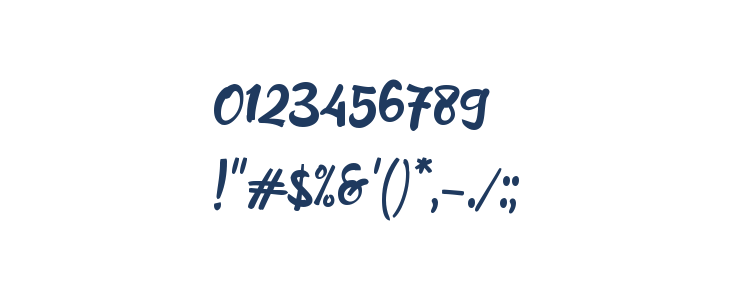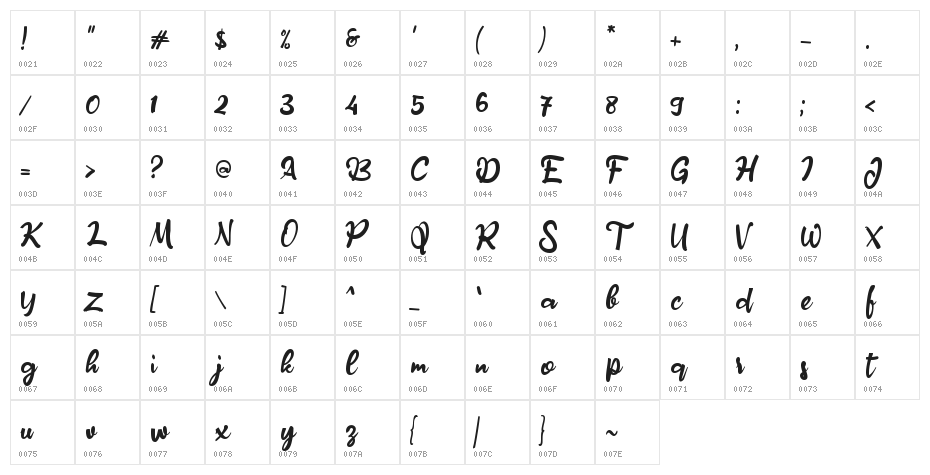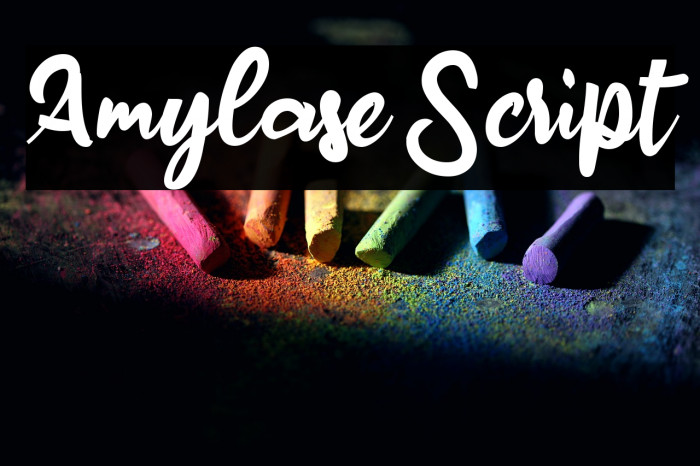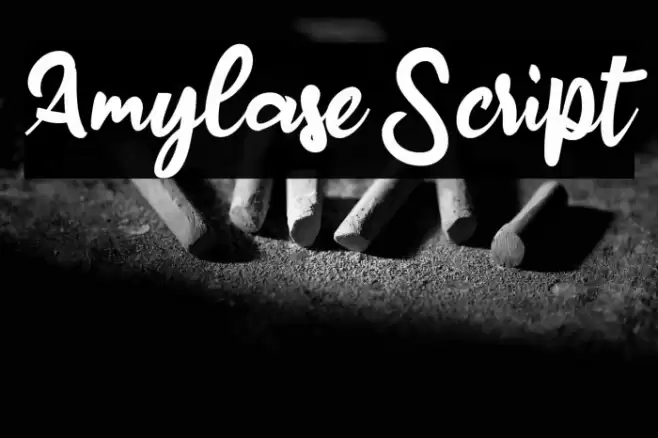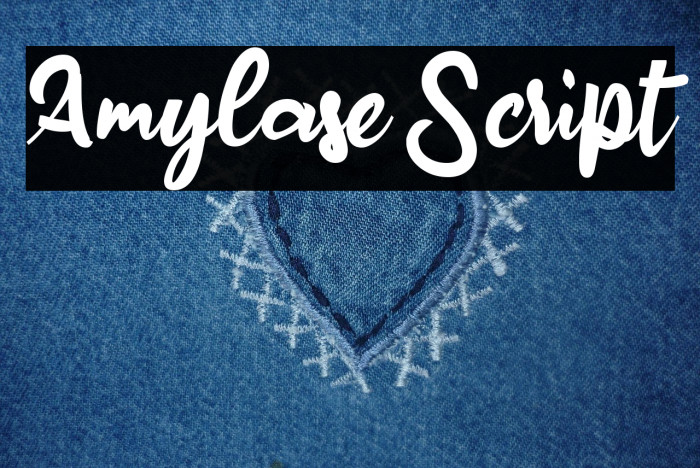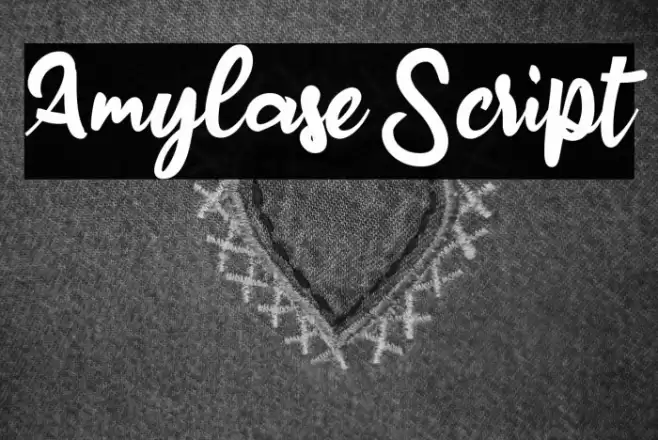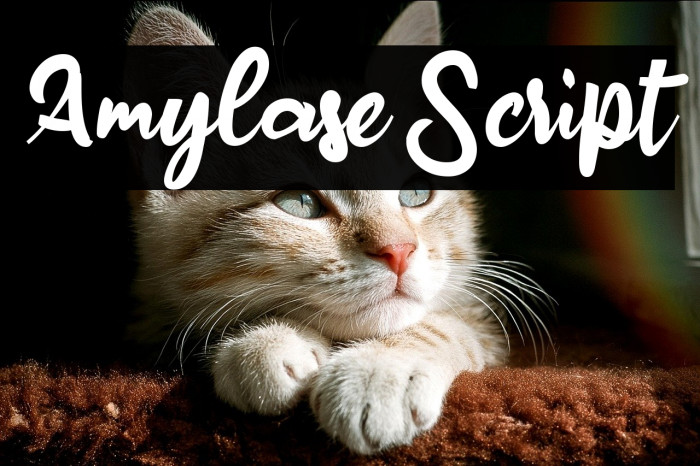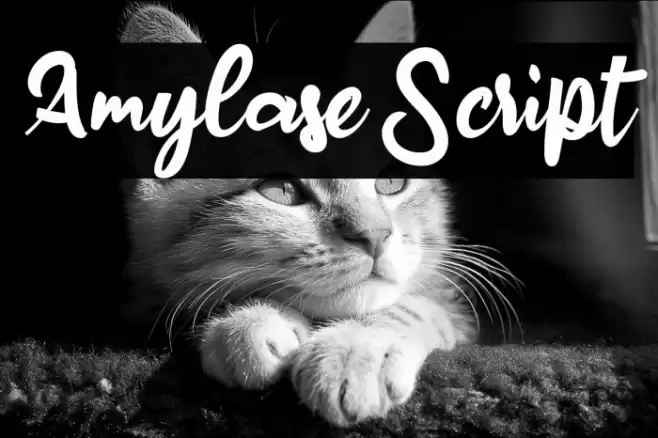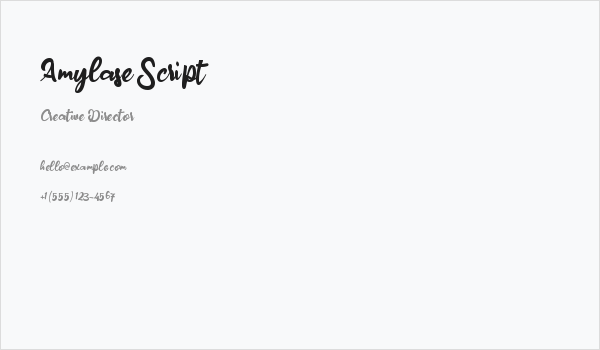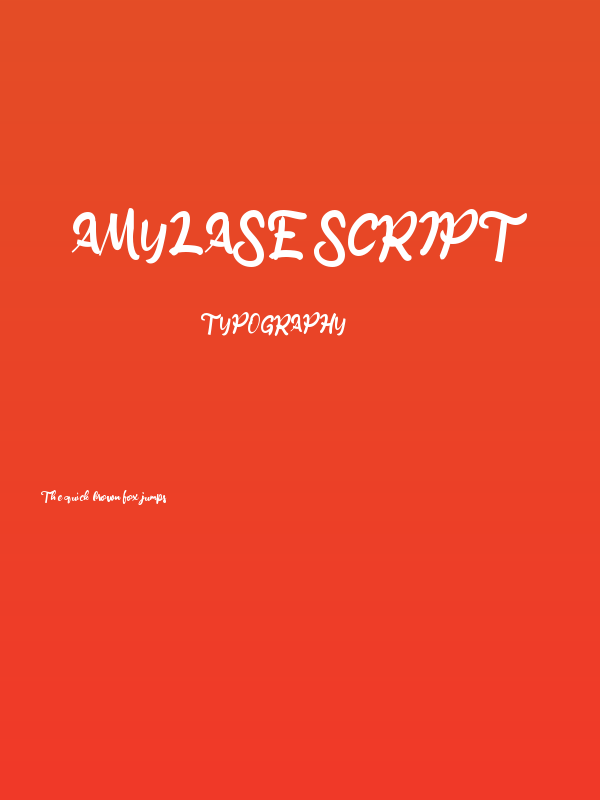
Amylase Script Font
Amylase Script Description
This font features a bold and flowing script style, characterized by its smooth, cursive strokes and elegant curves. The uppercase letters are slightly more elaborate, with distinctive loops and swashes that add a touch of sophistication. The lowercase letters maintain a consistent flow, enhancing readability while retaining a stylish flair. Numbers and special characters are designed to match the overall aesthetic, ensuring a cohesive look across all text. The font's dynamic and lively appearance makes it suitable for creative and expressive design projects.
| Proposed Projects | Ideal for wedding invitations, greeting cards, branding, and logo design, where a personal and artistic touch is desired. |